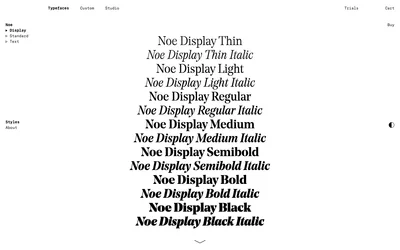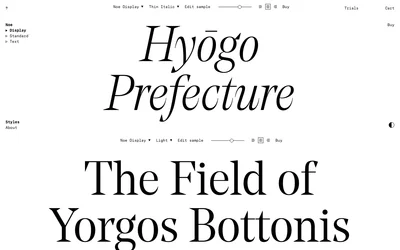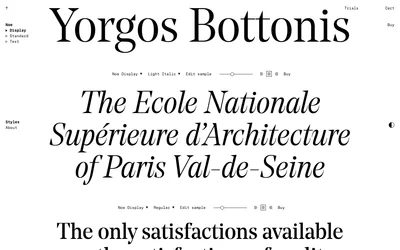
Heldane vs Noe Display
Heldane and Noe Display are both serif typefaces sharing a display foundation. Compare which suits your Editorial project.
Design overlap:80%
Heldane
Noe Display
Heldane
Noe Display
| Feature | Heldane | Noe Display |
| Source | Klim Type Foundry | Schick Toikka |
Where You'll See These Fonts
Noe Display
- Design magazine feature headlines and cover typography
- Fashion editorial display and lookbook headers
- Cultural institution exhibition materials
- Creative agency portfolio and brand identity work
- Luxury brand campaign headlines
Consider: Noe Display
- high contrast design character
- Suited for Headlines and Magazines
- From Schick Toikka